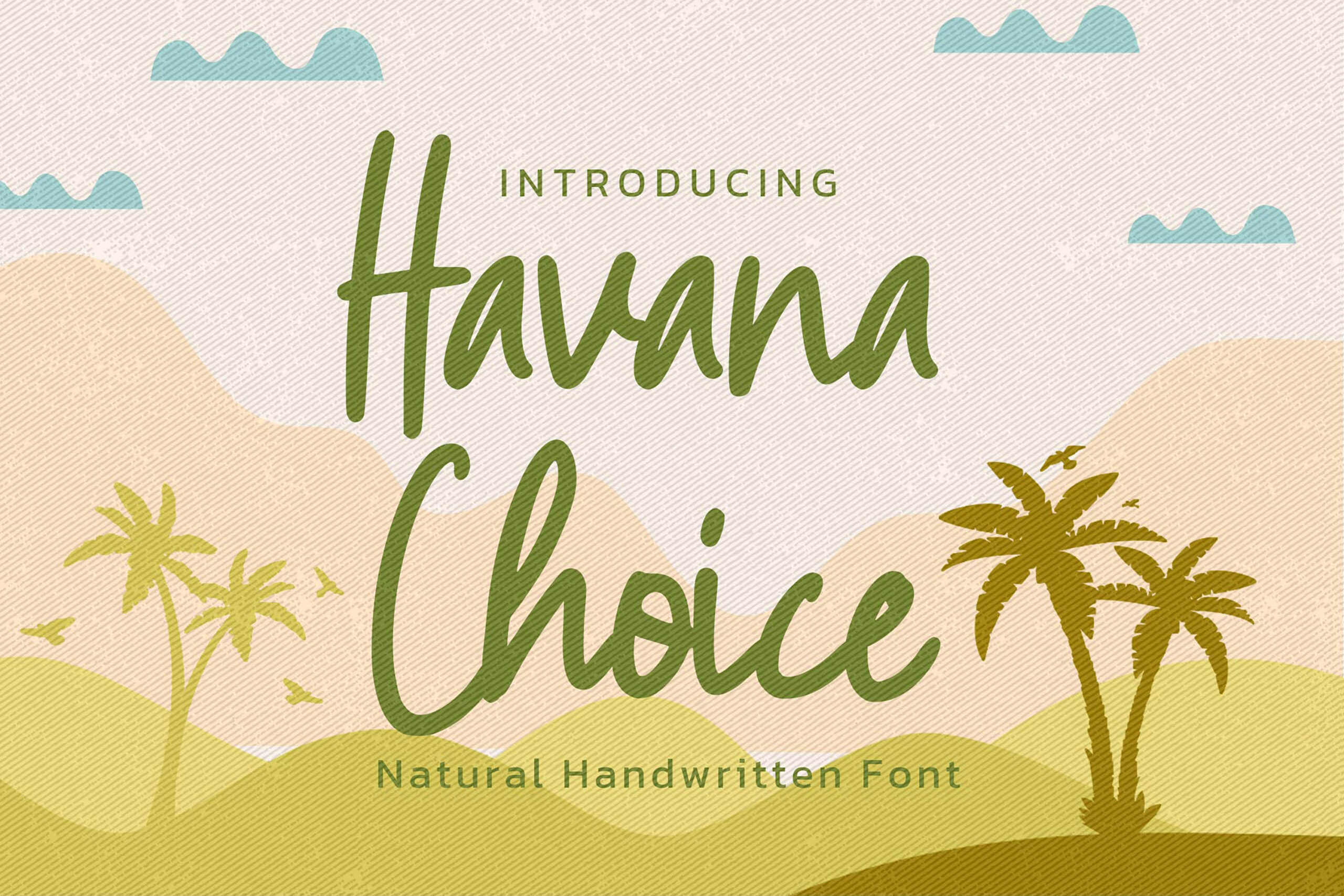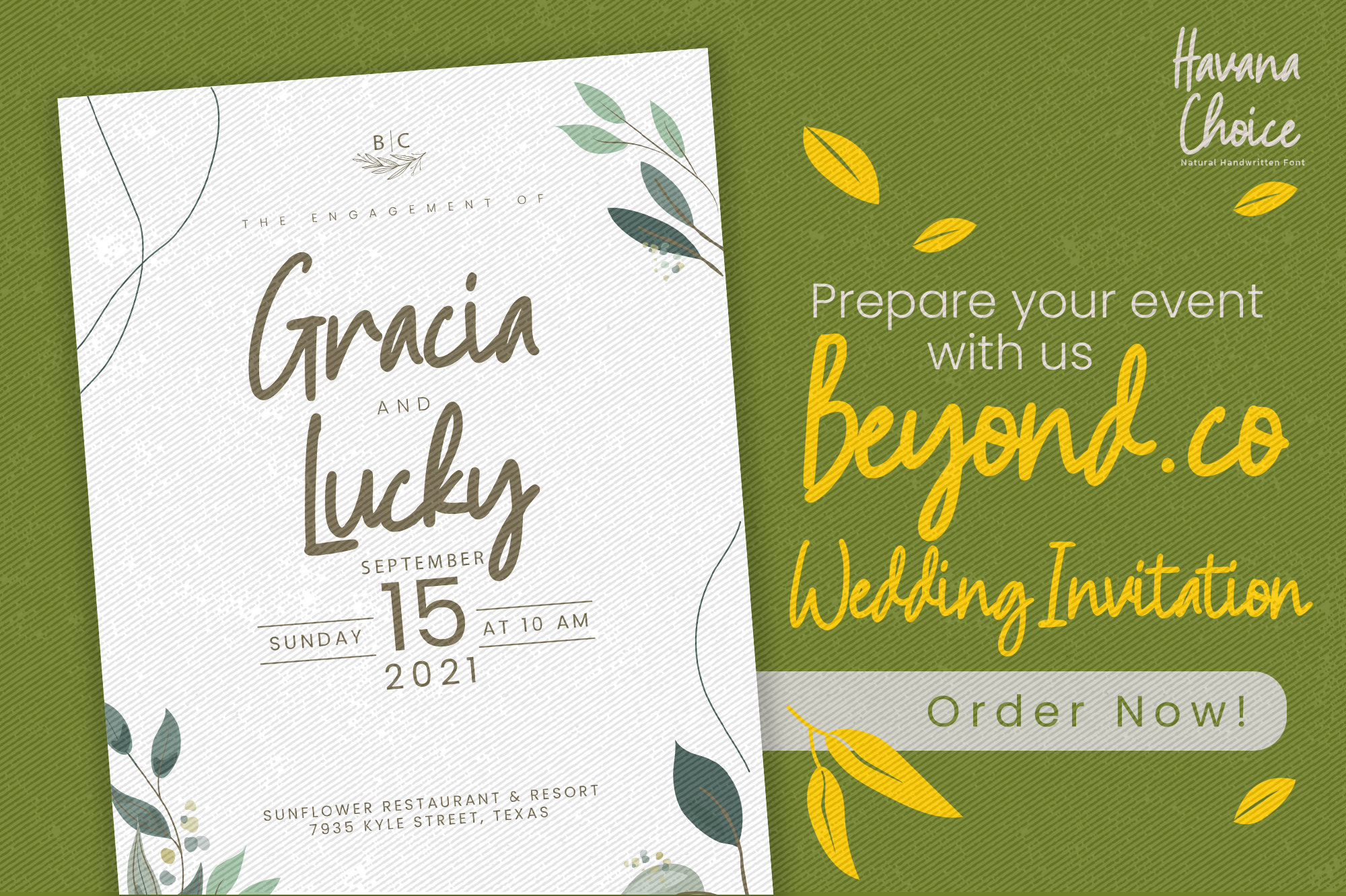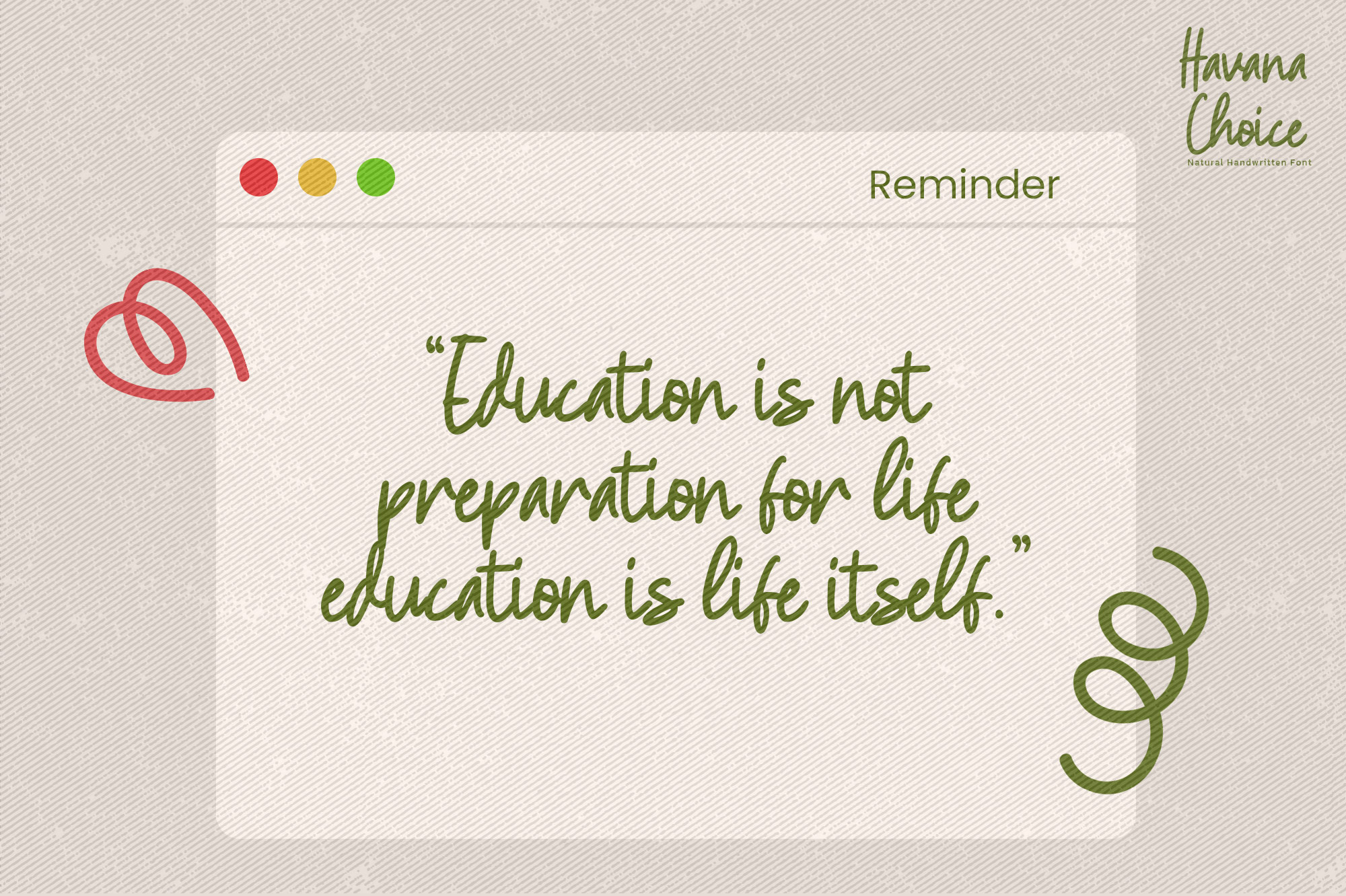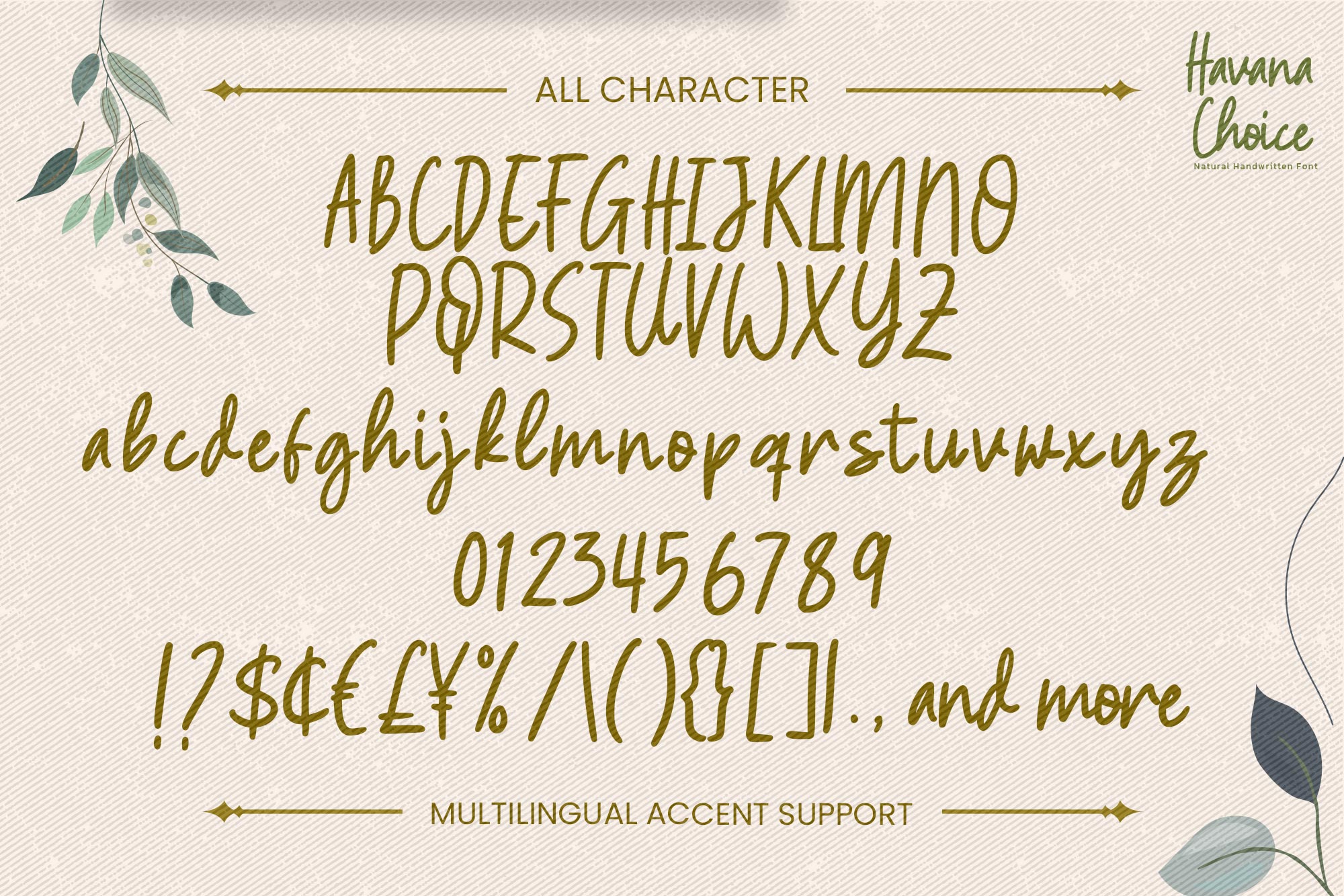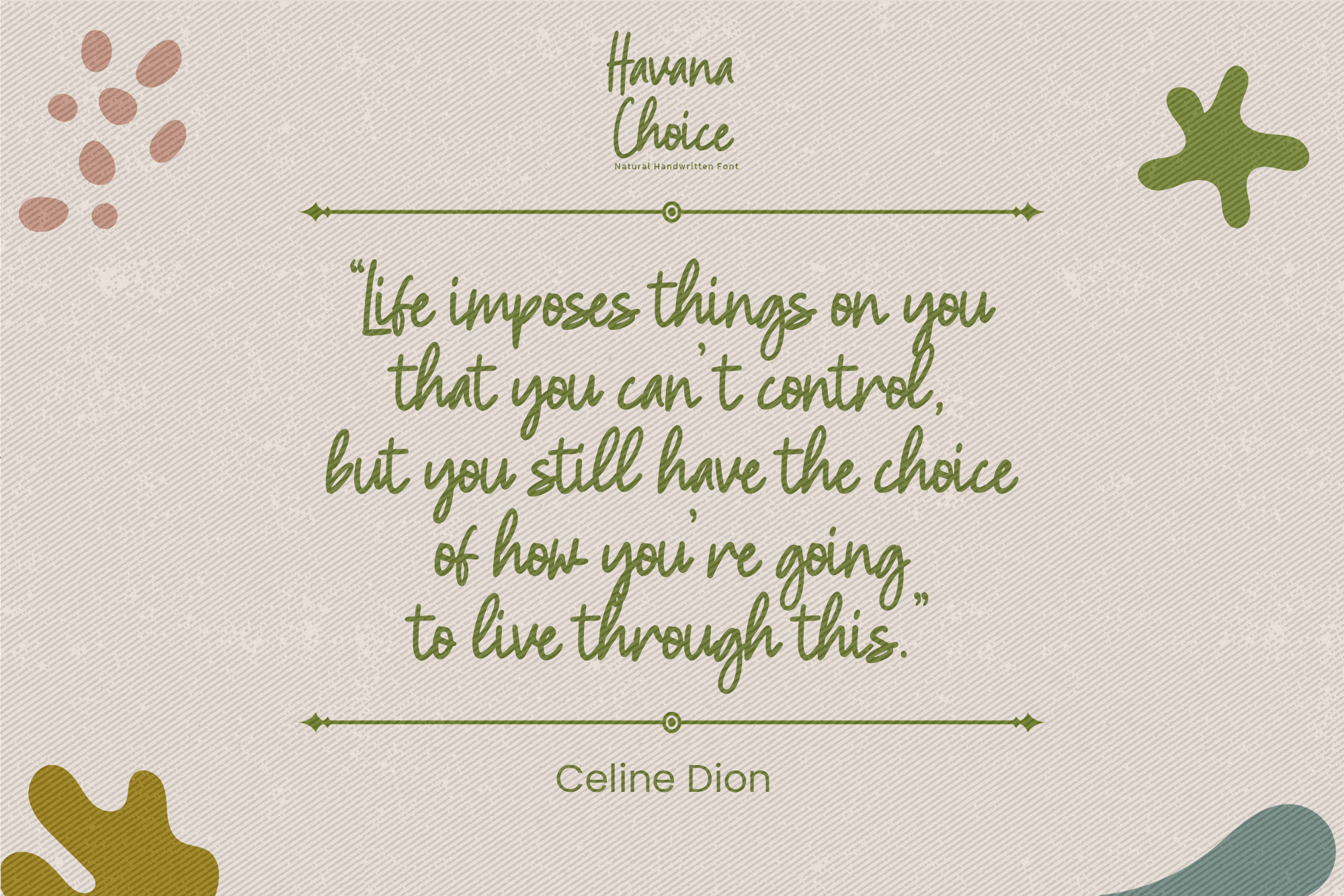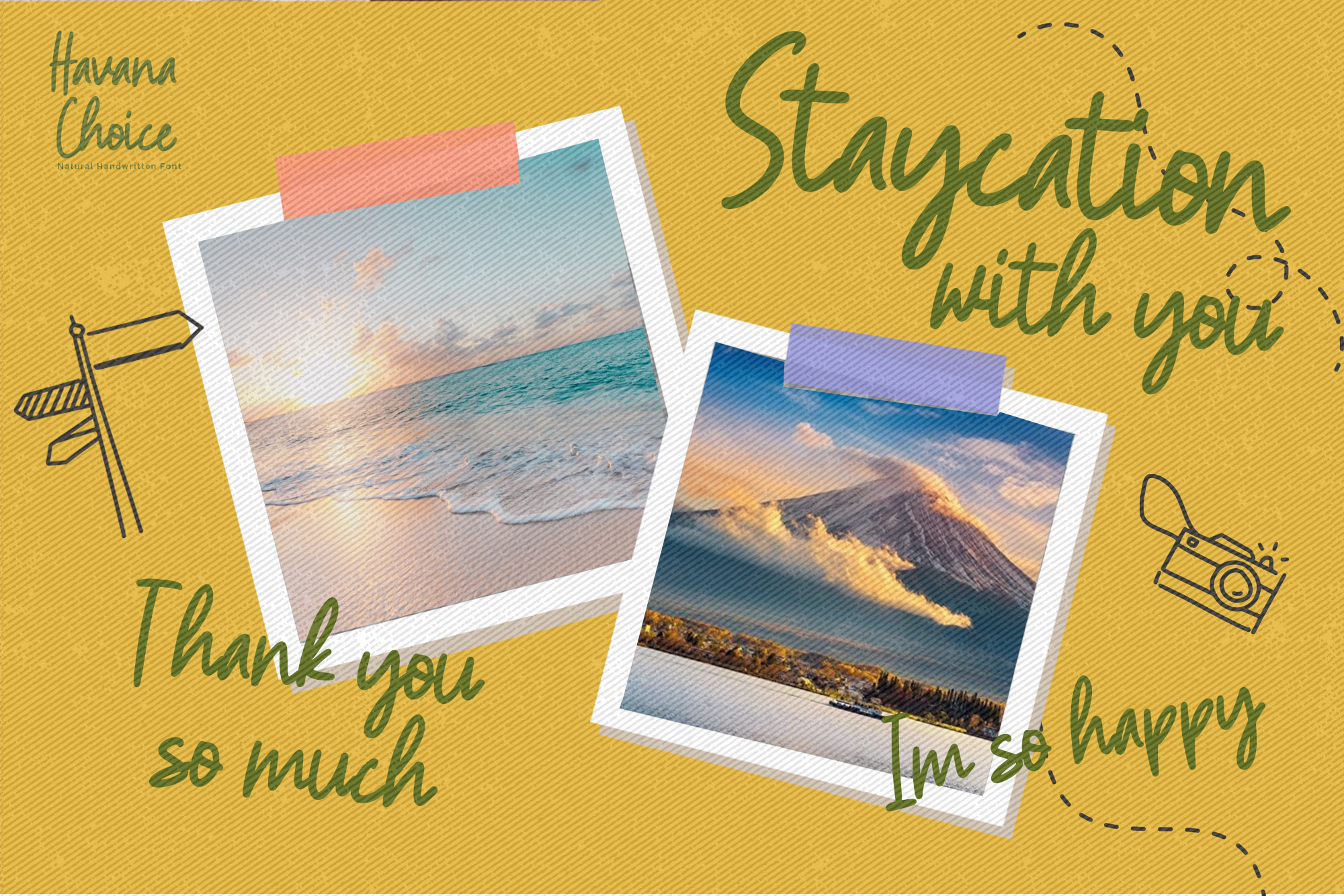
Havana Choice – Natural Handwritten Font, modern style and dramatic movement that is written casually and quickly.
The best for labels, poster,project , designs look modern, authentic and unique. It’s perfect for labels, quotes, posters, DIY projects, branding, packaging, greeting cards, websites, photography overlays, signs, scrapbooking, tags and so much more! That is why Havana Choice has a textured, and elegant characteristic more natural look.